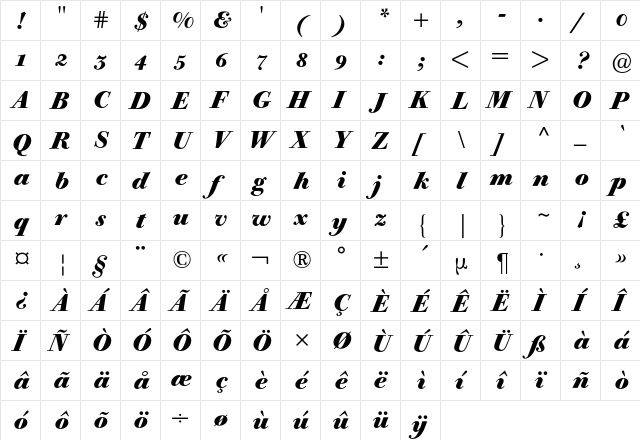
Bodoni Old Face Expert BQ Regular Font Preview
Bodoni Old Face Expert BQ Regular
Bodoni Old Face Expert BQ Regular Font Details
Design Context for Bodoni Old Face Expert BQ Typeface
Bodoni Old Face Expert BQ offers clean, dependable letterforms without strong stylistic allegiance, making it a practical choice for designers who need flexibility.
Pro Tip: Use Bodoni Old Face Expert BQ in both headline and body roles to test its range before committing to a single application.